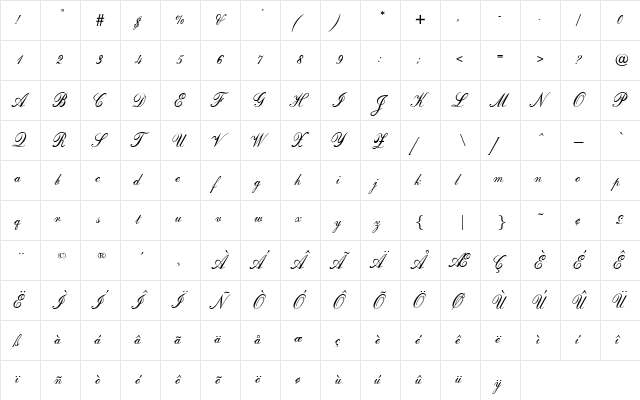
OPTI Original Script
Design Context for OPTI Original Typeface
OPTI Original brings a calligraphic fluidity to the page — its connecting strokes and expressive curves give it an unmistakably human quality.
Font Pairing: Combine OPTI Original with a simple geometric sans for maximum contrast — the tension between flowing curves and clean structure is a classic typographic pairing.
Pro Tip: Use OPTI Original for short runs of text — names, titles, or taglines. Extended body copy in script faces tires the eye quickly.